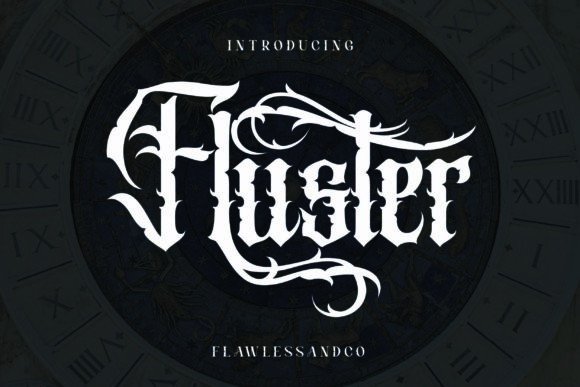
In a world of overused and ordinary fonts, Fluster Blackletter emerges as a breath of fresh air. This remarkable font, brought to life by the creative minds at Flawless And Co., is not just a collection of letters; it's an artistic expression that captures the essence of timeless elegance and modern sophistication.
Fluster's intricate swirls and sharp serifs exude a timeless charm that evokes a sense of nostalgia and heritage. Whether you're designing a logo for your new venture, crafting branding materials that leave a lasting impression, or creating t-shirts that make a statement, Fluster has the power to elevate your designs to new heights.
Its versatility extends far beyond the realm of logos and branding. Fluster's ornate characters add a touch of elegance to business cards, photography, and quotes, transforming them into visually captivating pieces. Experiment with the alternate characters to unlock endless possibilities and create designs that truly stand out.
With Fluster, you have the power to create designs that whisper stories, convey emotions, and leave an indelible mark on your audience. It's not just a font; it's an experience that invites you to explore the depths of your creativity and bring your visions to life. Join the ranks of discerning designers who have discovered the magic of Fluster and elevate your work to the next level.